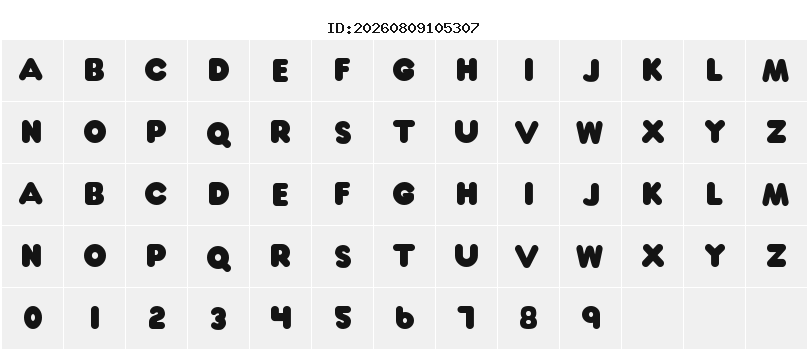
Penny Pinch Preview
• Font Name: Penny Pinch
• Full Font Name: Penny Pinch
• Version: Version 1.00 September 22, 2015, initial release
About Penny Pinch.ttf
Penny Pinch.ttf is a modern, elegant sans-serif font designed for ultimate readability and visual harmony. Perfect for branding, headlines, web design, and print materials.